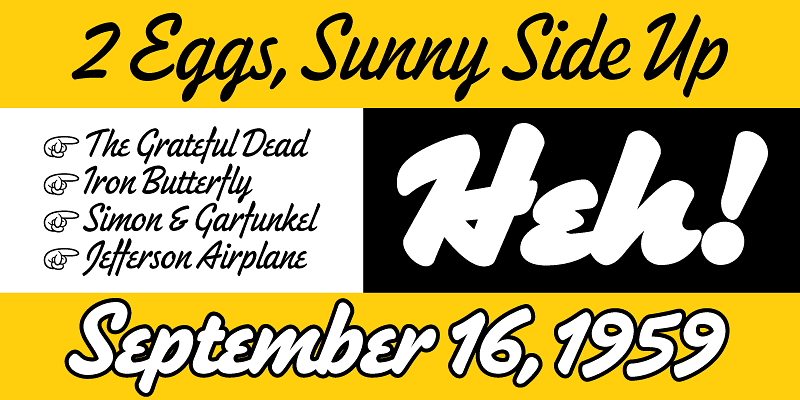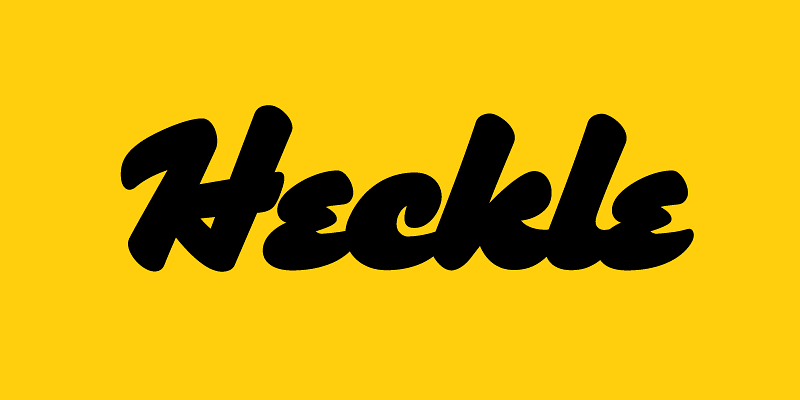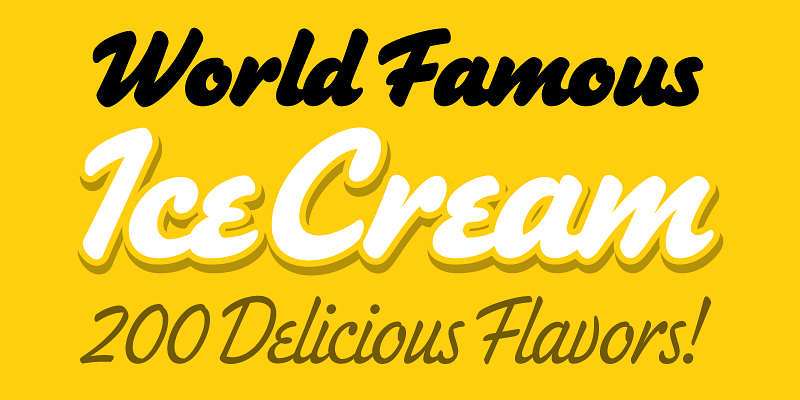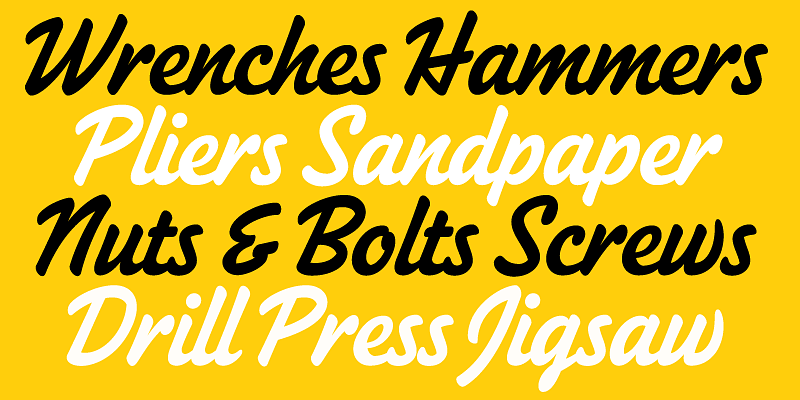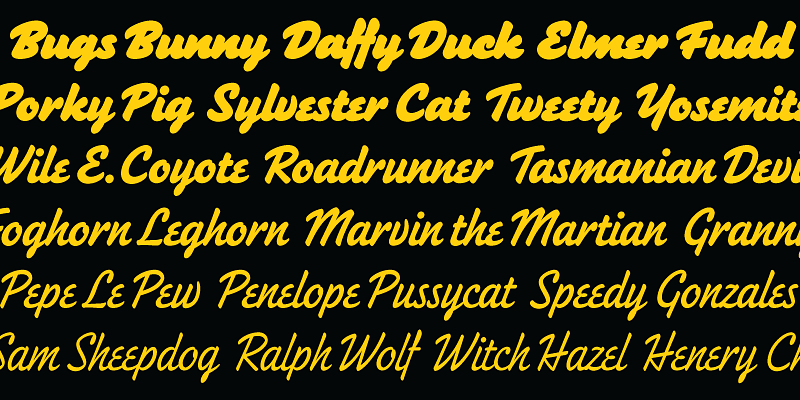
Heckle is a family of display fonts that began as a tiny sketch of the word “Heh” on a scrap of paper back in 2005—a heavy brush script style with a 1940s/1950s feel. It wasn’t based on any particular source or model, but purely from the memory of such styles.
After doing a draft of the upper- and lowercase in 2017 Mark committed to developing it in October 2025, in addition to the weight range. In contrast to the initial sketch, it uses sharp corners on the insides of curves, giving it a crisp, energetic appearance. It features an alternate lowercase “e,” contextual alternates for all-caps settings, automatic fractions, and a set of dingbats.
Heckle is well suited for branding, packaging, logos, editorial design, movie and book titles—any kind of display use where a smart, vintage style is called for.